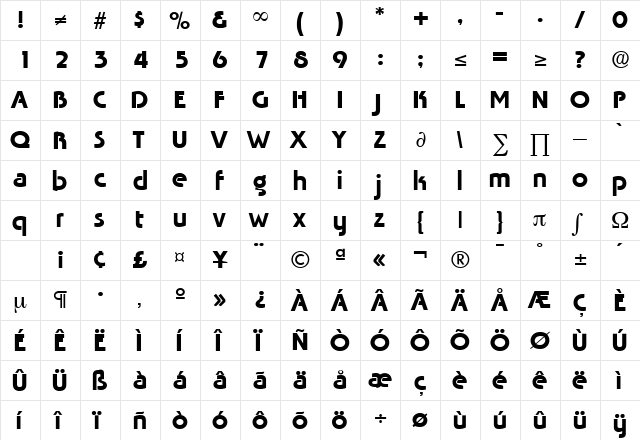
Tabasco DB Regular
Design Context for Tabasco DB Typeface
Tabasco DB is a composed and adaptable typeface that performs quietly and consistently across a wide range of design contexts.